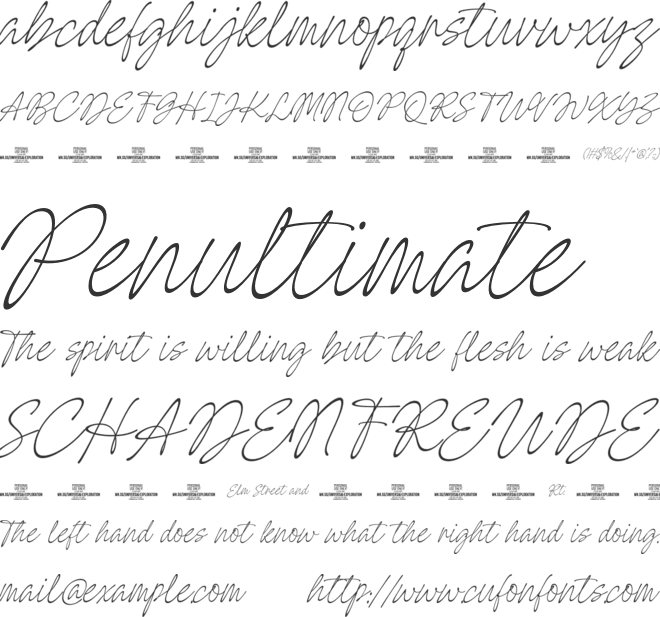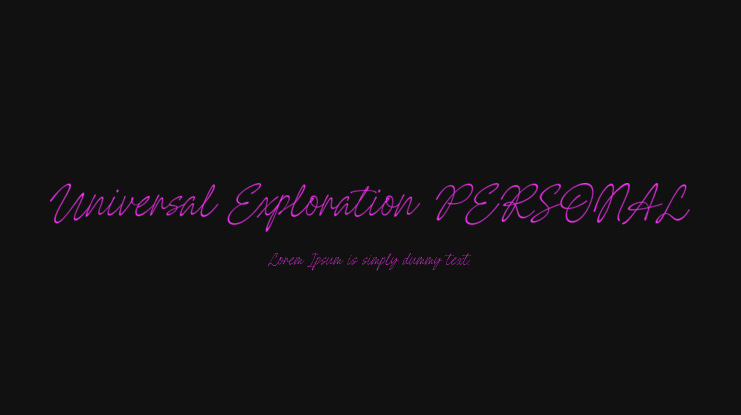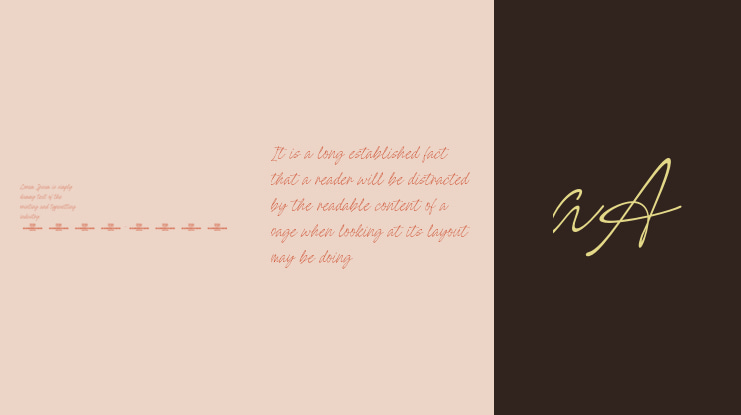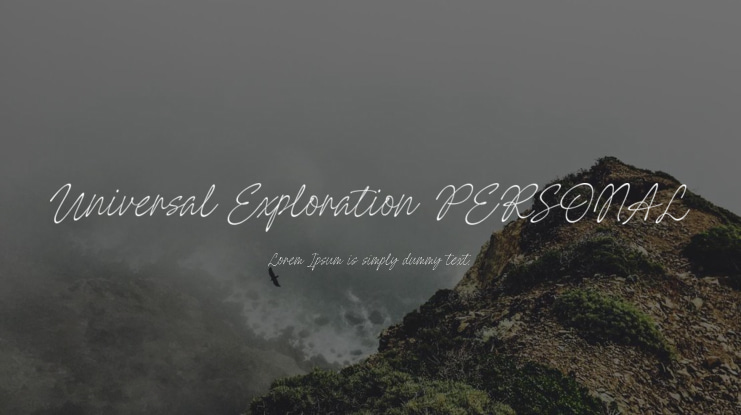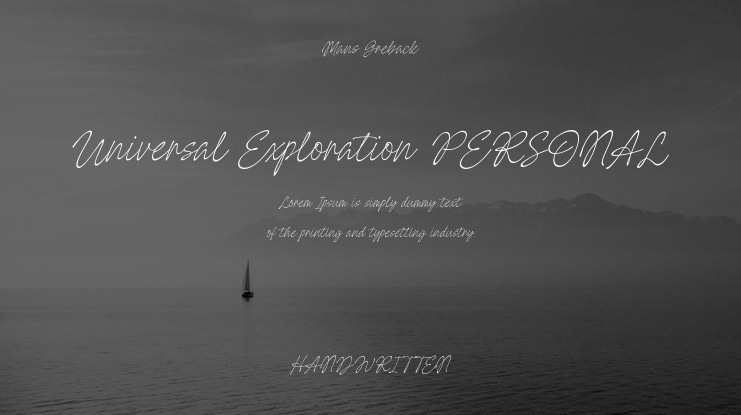
Universal Exploration PERSONAL Font
NOTE: This font is for PERSONAL USE ONLY! To purchase a commercial license, please visit: Universal Exploration. This elegant script font flows beautifully, capturing the fluid motion of ink on paper. Its smooth curves and expertly crafted ligatures provide a seamless flow, making it perfect for personal communication.